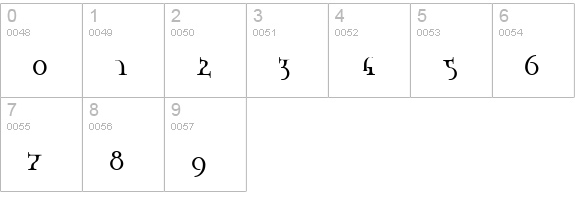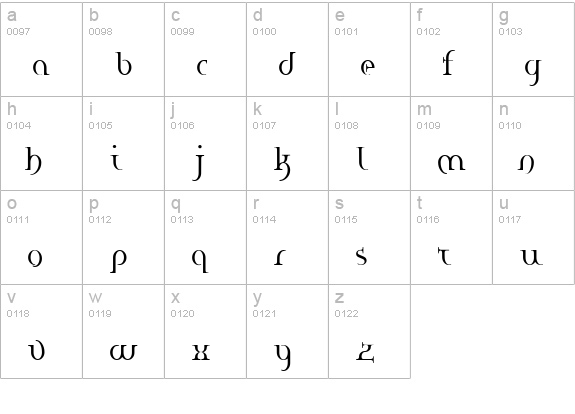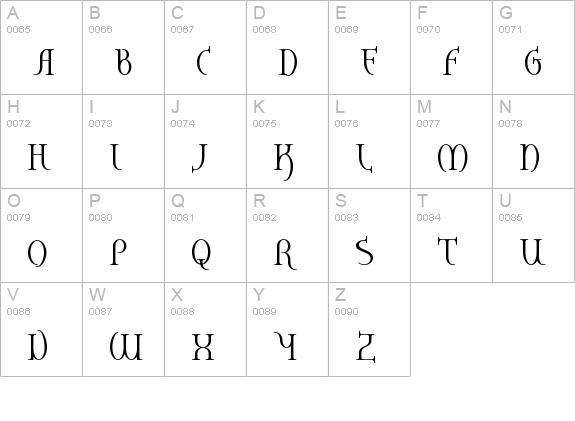
hane Regular E. Font Details
hane Regular E. is the standard, neutral variant in the hane typeface family \xE2\x80\x94 well suited to general body text, paragraphs, and standard typographic work.
Introducing hane Regular E font - a beautifully crafted typeface that effortlessly combines elegance with modernity. This versatile font is perfect for a wide range of design projects, from branding and logos to digital and print media. Its sleek and clean lines make it highly legible, while its subtle curves add a touch of sophistication. Designed with meticulous attention to detail, hane Regular E font offers a harmonious balance between classic and contemporary elements. Its well-defined letterforms create a sense of clarity and professionalism, making it ideal for both professional and personal use. What sets hane Regular E font apart is not only its impeccable design, but also its accessibility. This unique typeface is freely available to download at FontsMarket.com, allowing designers and enthusiasts alike to explore its potential without any limitations. Whether you're a seasoned professional or just starting out, hane Regular E font will undoubtedly elevate your projects to new heights. With a wide range of weights and styles to choose from, hane Regular E font offers endless possibilities for creative expression. From bold headlines to delicate body text, this font adapts effortlessly to any design concept, adding a touch of refinement and elegance. In addition to its aesthetic appeal, hane Regular E font is also highly functional. Its comprehensive character set includes multilingual support, ensuring that your message can be effectively communicated across different languages and cultures. So, if you're in search of a versatile and visually captivating font that will make your designs stand out, look no further than hane Regular E font. Download it for free at FontsMarket.com and unlock a world of creative possibilities. Embrace the elegance and modernity of hane Regular E font and let your imagination soar.